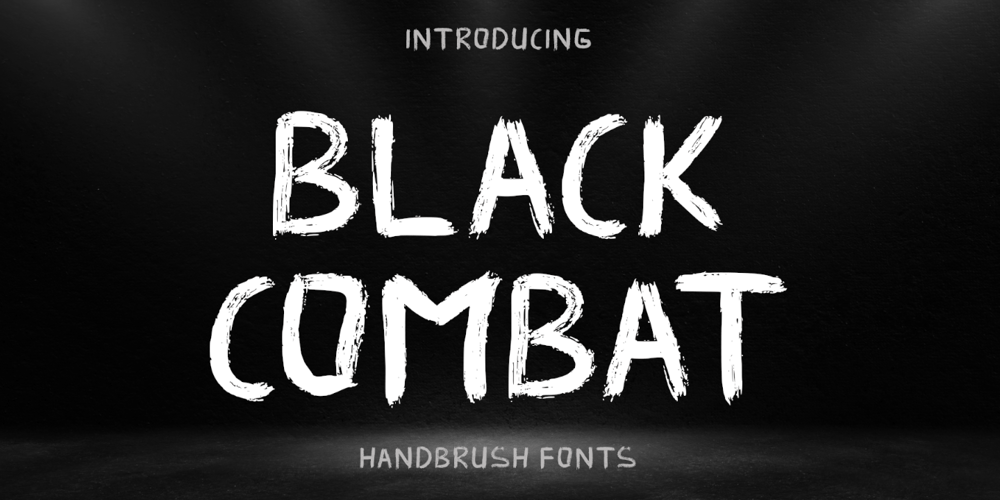
Black Combat Font Family was designed by Isroni Yoga Prasetya and published by Yoga Letter. Black Combat contains 1 styles and family package options. “Black Combat” is a unique, elegant, and fantastic handwritten brush font. This font is equipped with upper- and lower-case letters, numerals, punctuation, and multilingual support. Perfect for Easter, Spring, Halloween, Summer, logos, banners, posters, branding, stickers, and more.